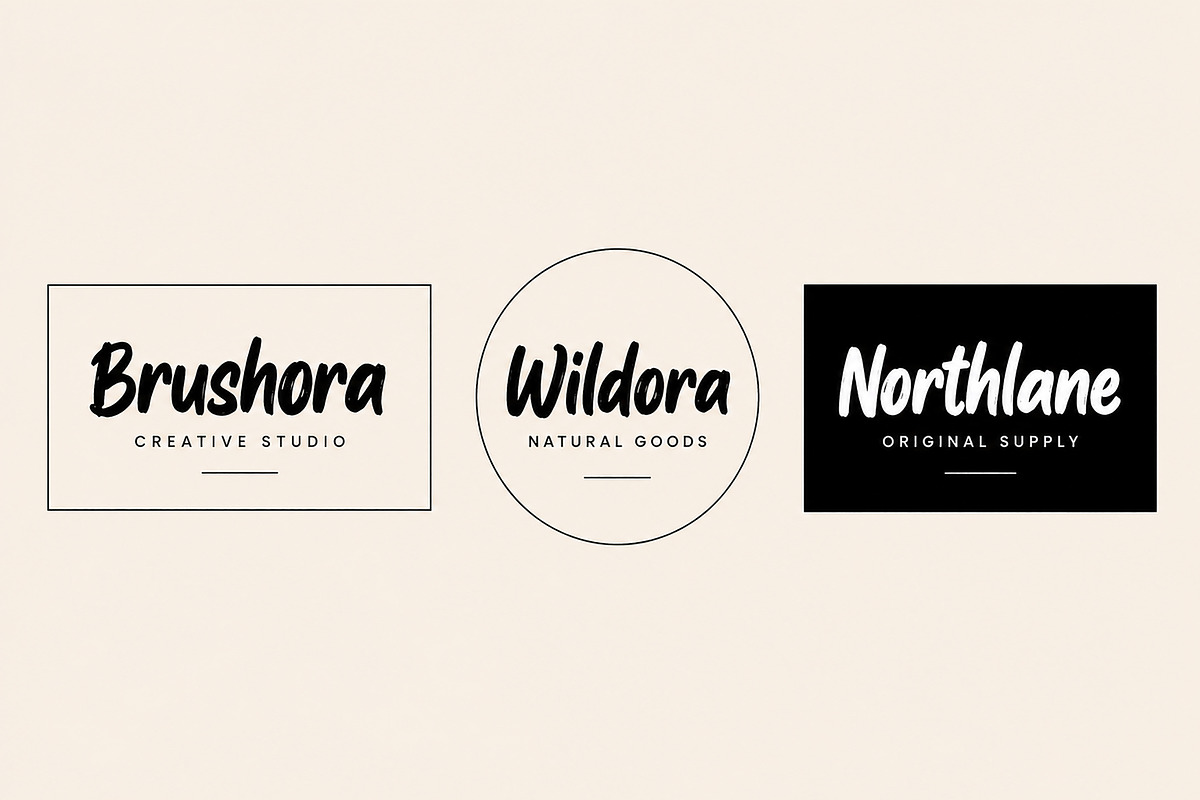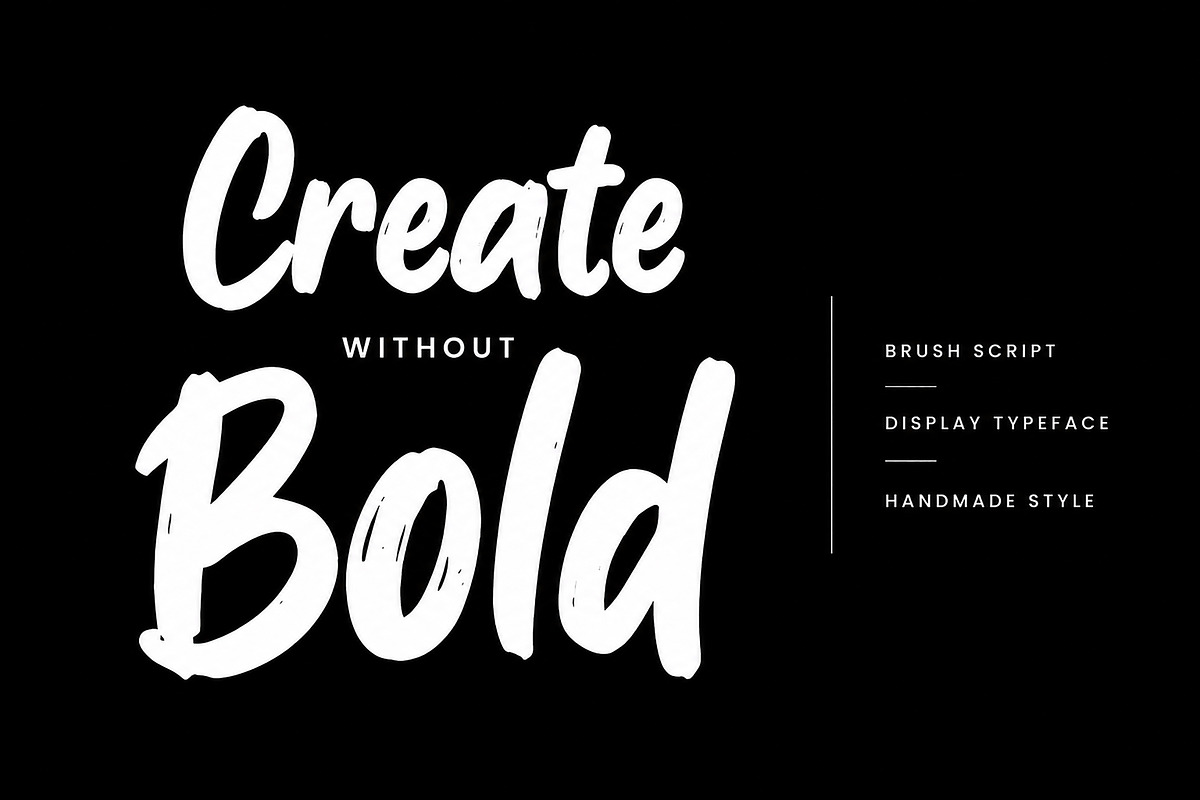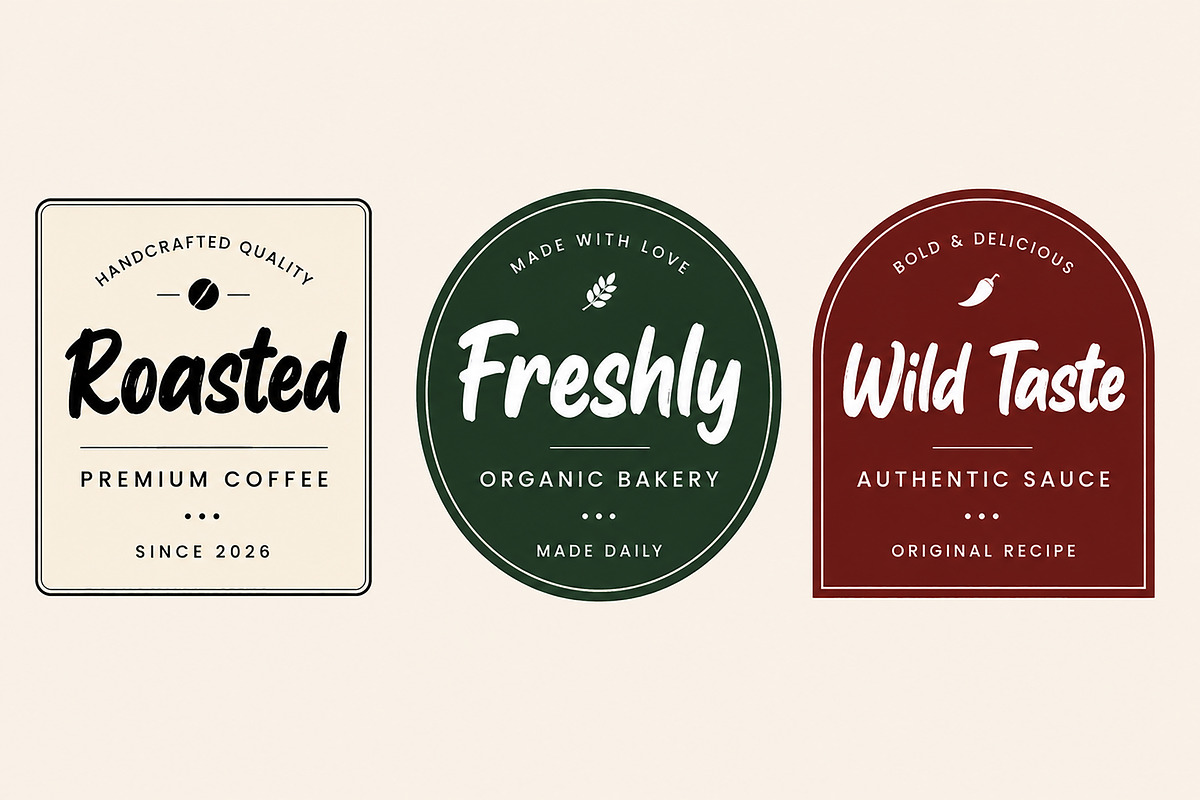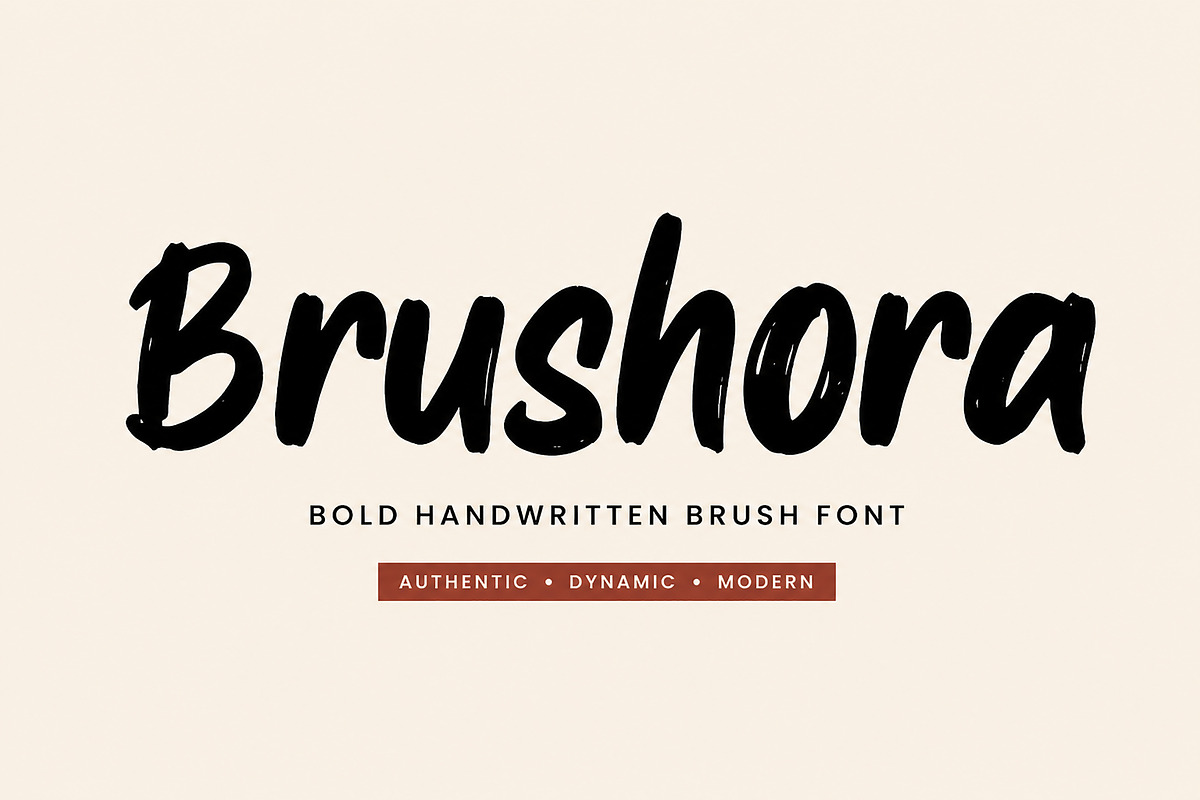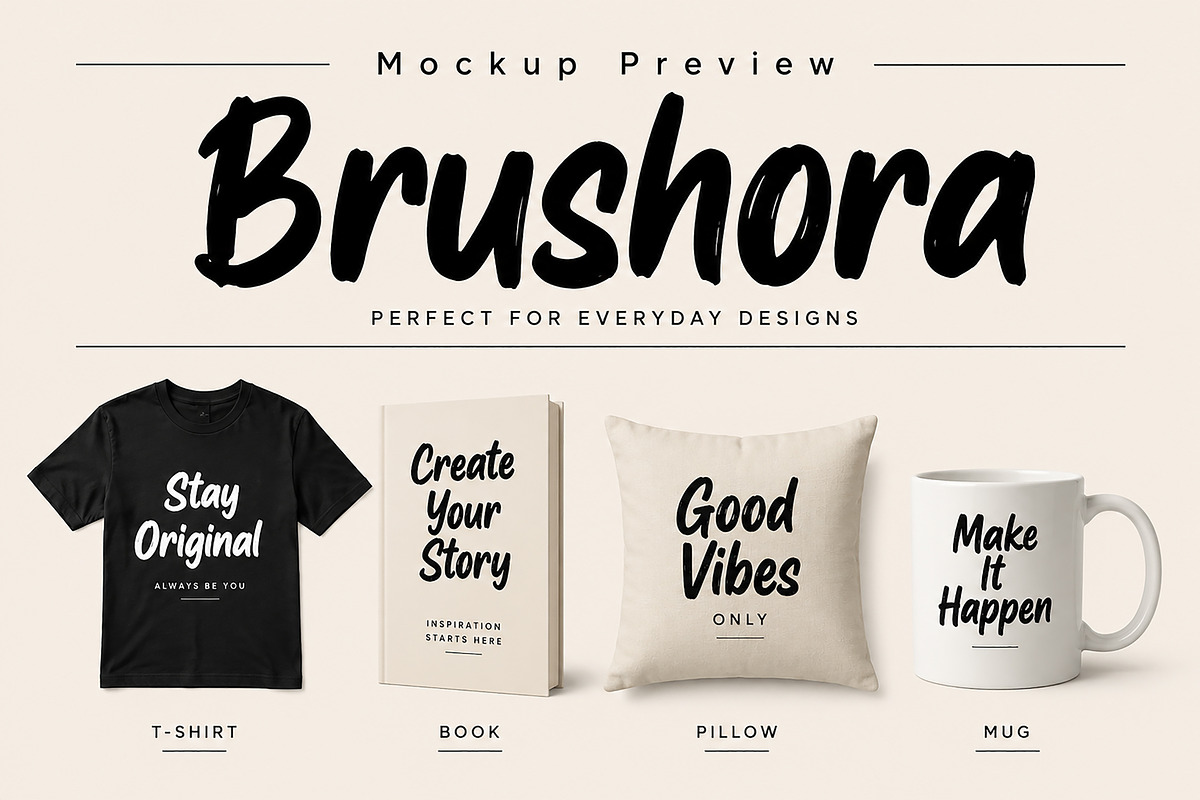
Brushora
Brushora – Bold Handwritten Brush Font
Brushora is a bold handwritten brush font designed to bring energy, personality, and authenticity to your creative projects. With natural brush strokes and expressive letterforms, it delivers a handcrafted look while maintaining excellent readability.
Whether you're designing logos, branding, packaging, social media graphics, posters, merchandise, or editorial headlines, Brushora adds a confident and modern touch that instantly stands out.
Its clean brush style makes it suitable for both professional branding and creative personal projects.
Brand Identity
Coffee & Bakery Branding
Apparel & T-Shirt Design
Posters
Advertising
Quotes
YouTube Thumbnails
Editorial Headlines
Labels & Stickers
Fashion Branding
Uppercase & Lowercase Letters
Why You'll Love Brushora
Brushora combines the natural feel of authentic brush lettering with a bold, modern appearance. Every character is designed to create strong visual impact while remaining clean and easy to read, making it an excellent choice for designers, brands, and content creators looking for a versatile handwritten brush font.